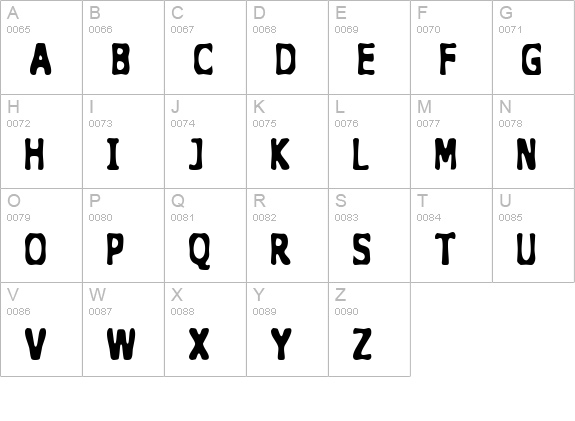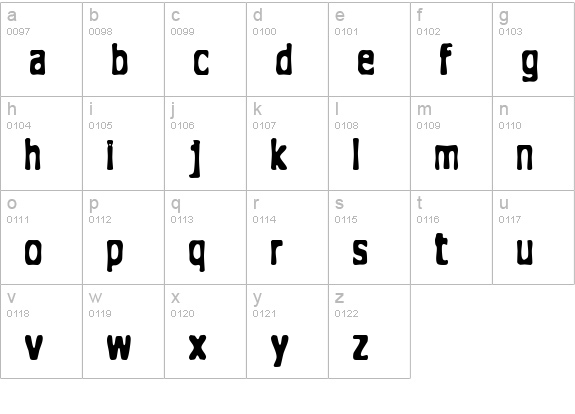
The Doghouse Font Details
The Doghouse font is a charming and playful typeface that is sure to bring a touch of whimsy to any design project. With its quirky and irregular letterforms, this font captures the essence of a mischievous pup bounding through a grassy field. The varying heights and widths of the characters give it a hand-drawn feel, adding a personal touch to your designs. What makes The Doghouse font even more appealing is that it is available for free download at FontsMarket.com. Whether you're a professional designer or a hobbyist looking to add a fun and unique element to your creations, this font is freely available to enhance your work. With just a few clicks, you can effortlessly incorporate The Doghouse font into your designs, bringing a sense of playfulness and joy to your projects. This font is perfect for a wide range of applications, from greeting cards and invitations to logos and branding materials. Its versatility allows it to be used in both digital and print formats, making it a valuable tool in any designer's repertoire. The Doghouse font is sure to captivate and delight audiences of all ages, leaving a lasting impression with its distinctive and spirited style. So, whether you're looking to add a touch of whimsy to your next design project or simply want to experiment with a fun and free font, look no further than The Doghouse font. Download it today at FontsMarket.com and unleash your creativity.